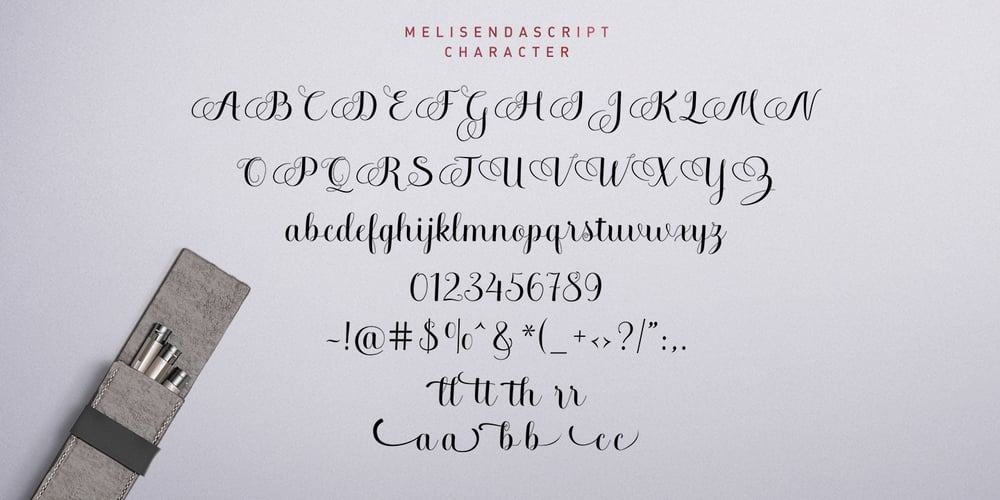
Melisenda Script Font Family was designed by Yur Lis and published by Stripes Studio. Melisenda Script contains 1 styles and family package options. Melisenda Script with the kind of modern hand writing, I hope you are interested in this font. This font can be used easily and simply because there are a lot of features in it and therefore contain a complete set of letters lower and uppercase letters, assorted punctuation, numbers, and multilingual support. It also contains several ligatures and alternate style stylistic characters. To enable the OpenType Stylistic alternates, you need a program that supports OpenType features such as Adobe Illustrator CS, Adobe Indesign & CorelDraw X6-X7, Microsoft Word 2010 or later versions. And there are additional ways to access alternates/swashes, using Character Map (Windows), Nexus Font (Windows), Font Book (Mac) or a software program such as PopChar (for Windows and Mac). How to access all alternative characters using Adobe Illustrator: https://www.youtube.com/watch?v=XzwjMkbB-wQ How to access all alternative characters, using Windows Character Map with Photoshop: https://www.youtube.com/watch?v=Go9vacoYmBw This Font has given PUA unicode Thank you for your purchase!